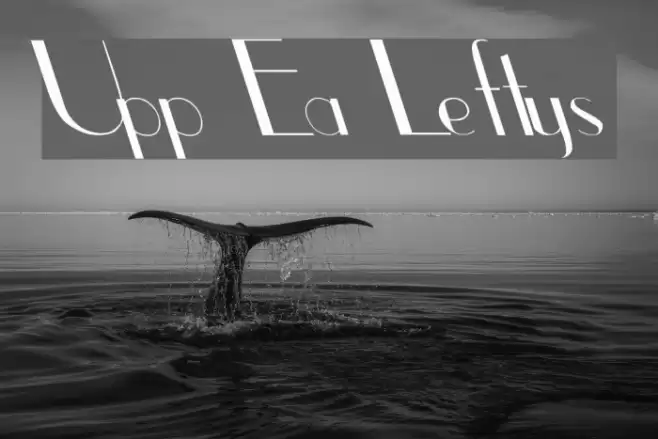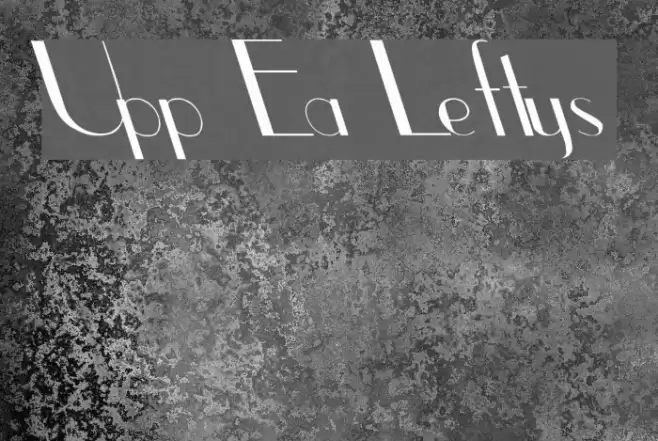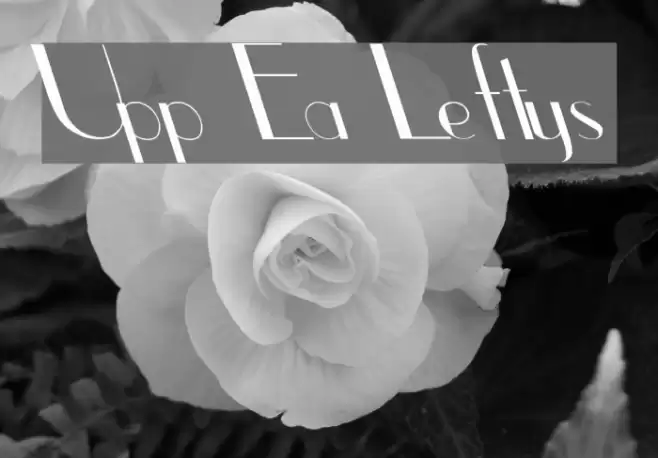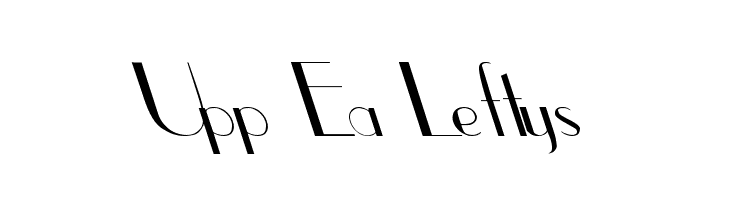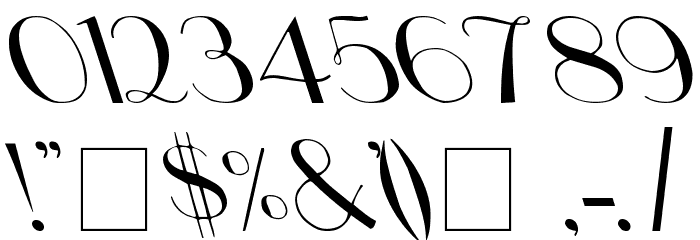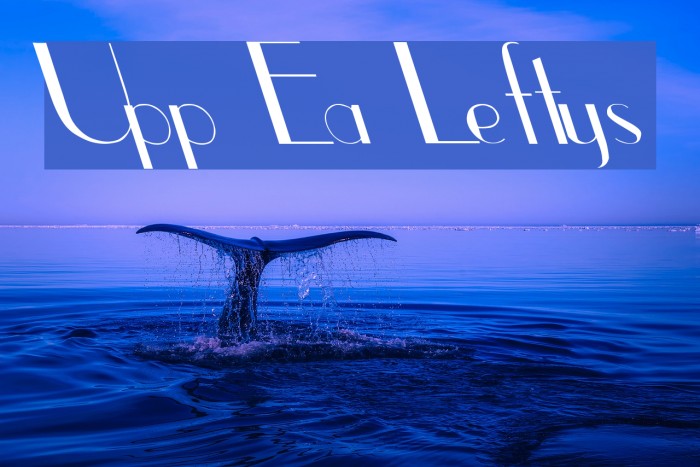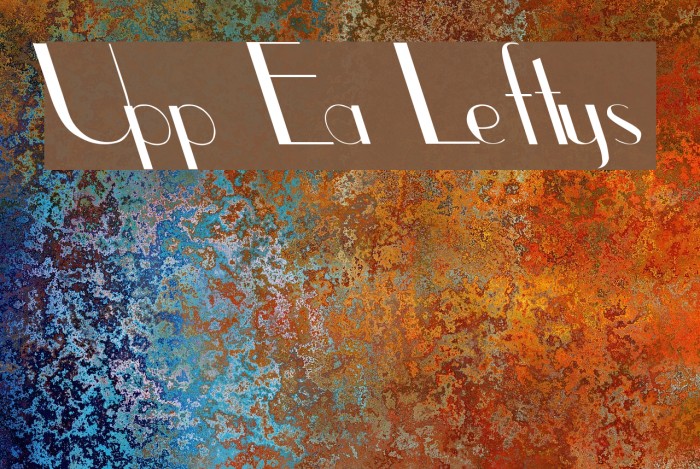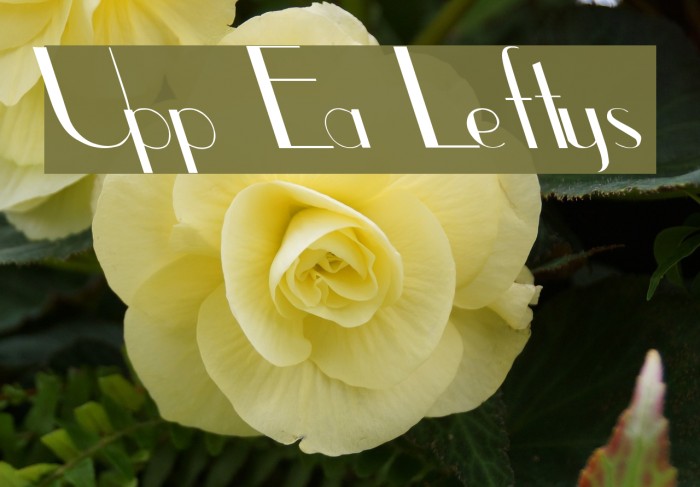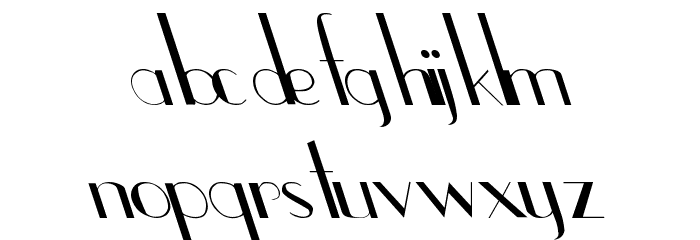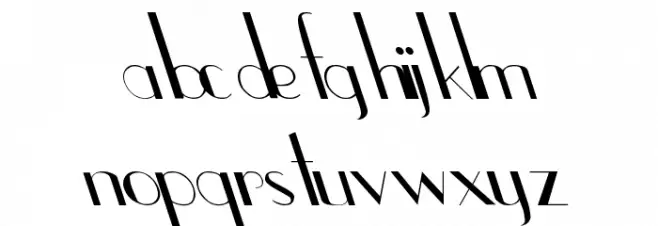
Upp Ea Leftys Font
Upp Ea Leftys Description
This font features a unique and artistic design with a blend of thick and thin strokes, creating a dynamic and elegant appearance. The uppercase letters are characterized by sharp angles and elongated forms, while the lowercase letters maintain a more fluid and cursive style. The numerals are distinct, with a playful yet sophisticated look. Special characters are creatively designed, adding to the overall artistic flair. The font's high contrast between thick and thin lines gives it a striking and modern aesthetic, making it suitable for eye-catching designs.
An artistic font with high contrast and dynamic strokes, ideal for modern designs from Uncategorized fonts.
- Proposed Projects: This font is perfect for branding projects, logo design, fashion magazines, and creative posters.